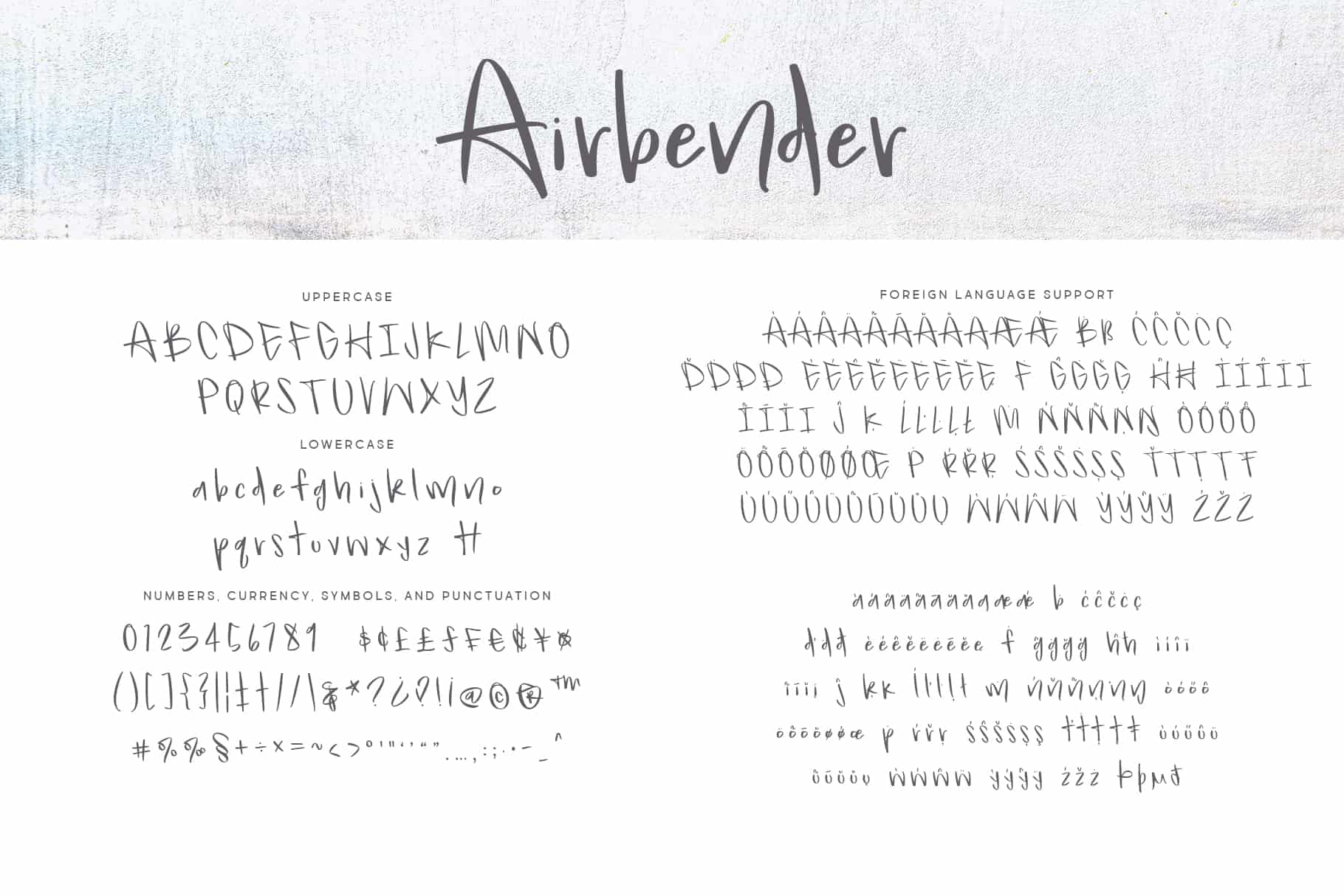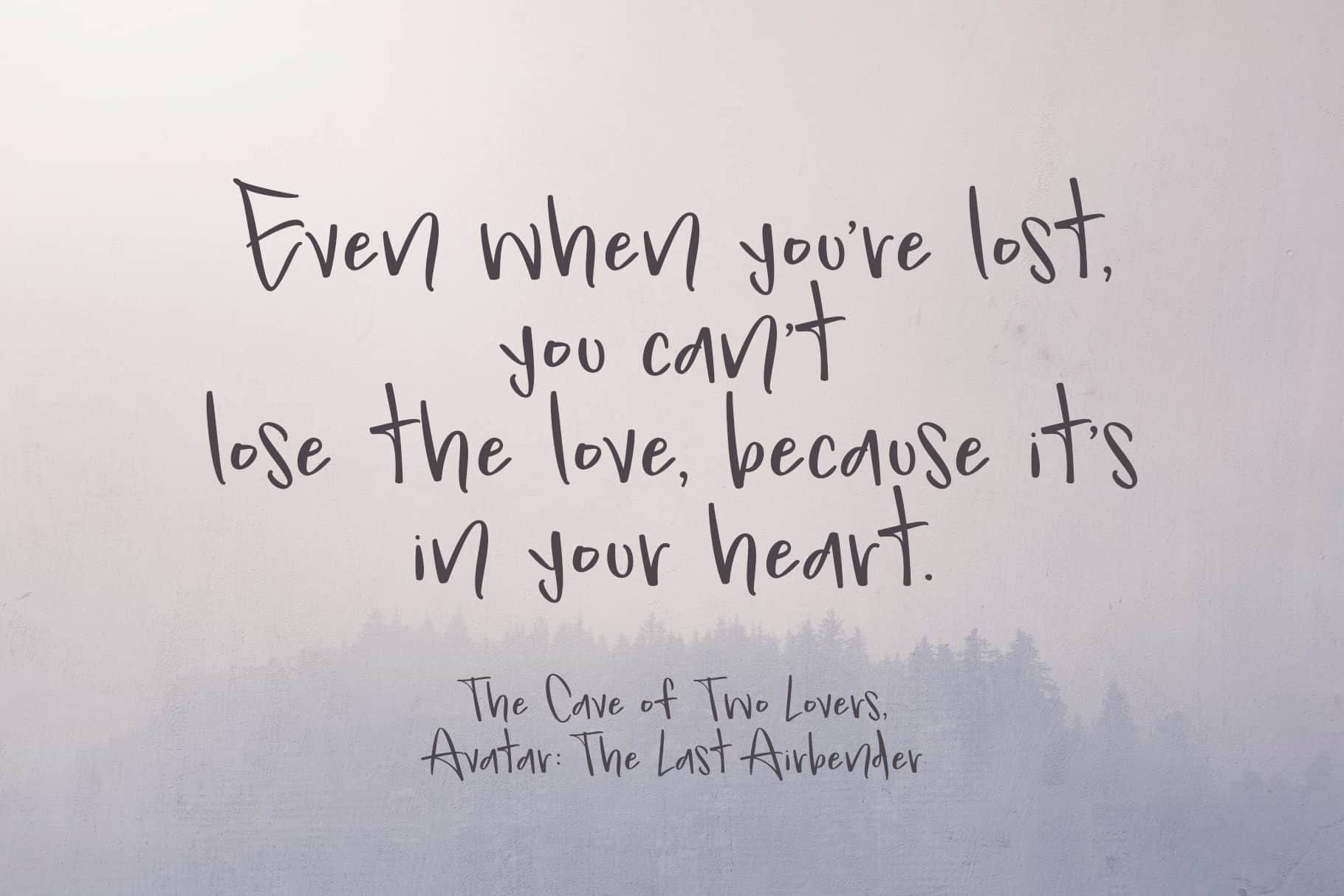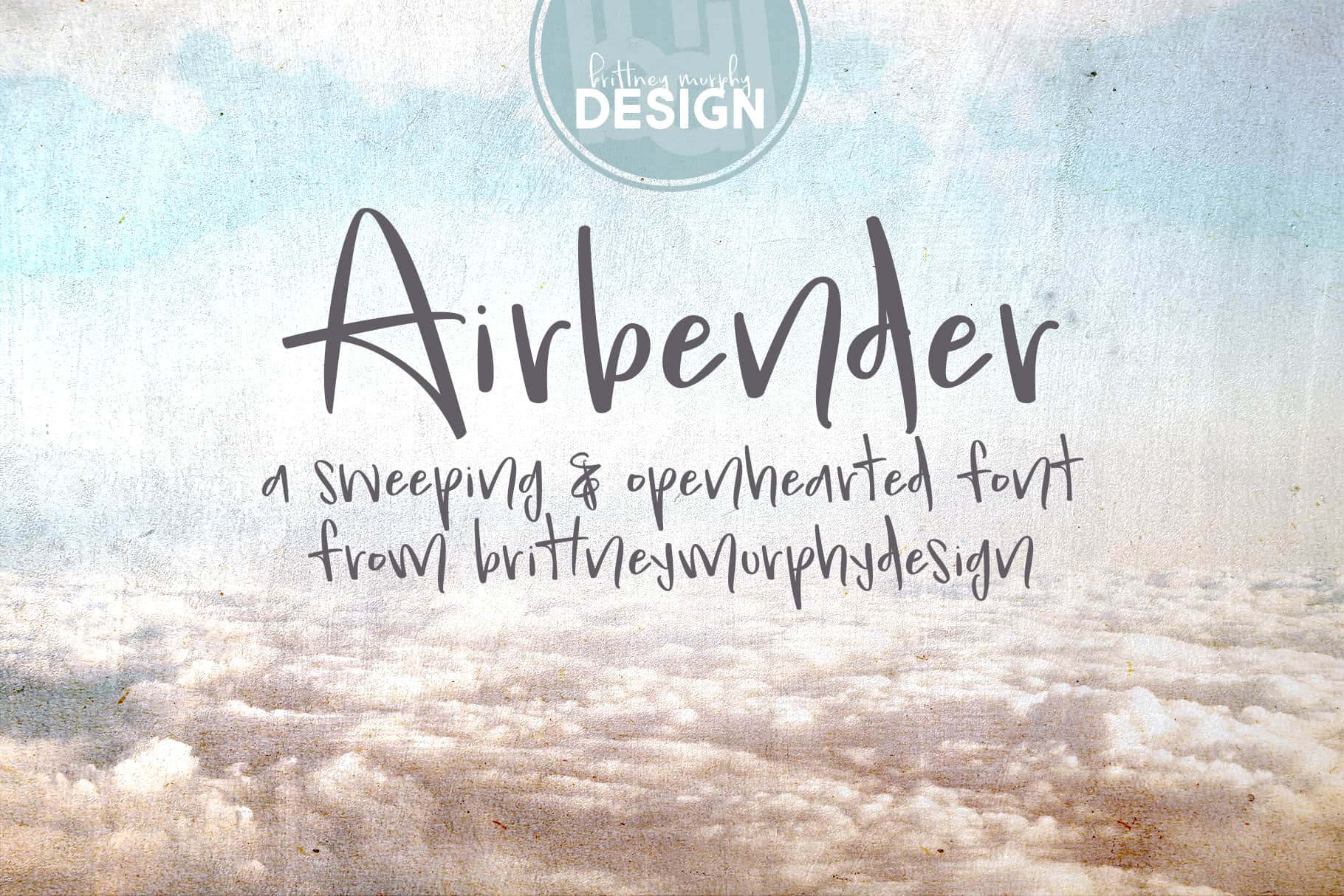
Airbender
Airbender Font
Airbender Quote
Airbender Letters
About the Airbender Font
The Airbender Font is a handwritten font made in 2020 by Brittney Murphy Design. Airbender has an openhearted feeling in a smooth sweeping style. Featuring over 350 glyphs The Airbender font supports most latin based languages.This font is well suited to give your cards, headlines, by-lines, and any of your graphic design projects a charismatic flair. Currently featuring a tt alternate and hoping to add many more in the future.